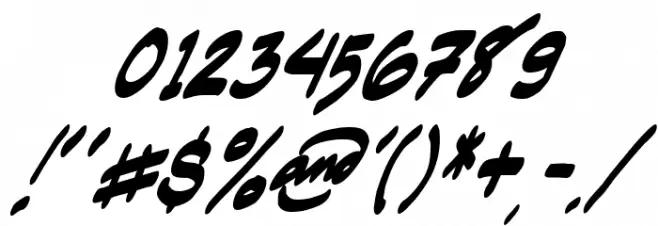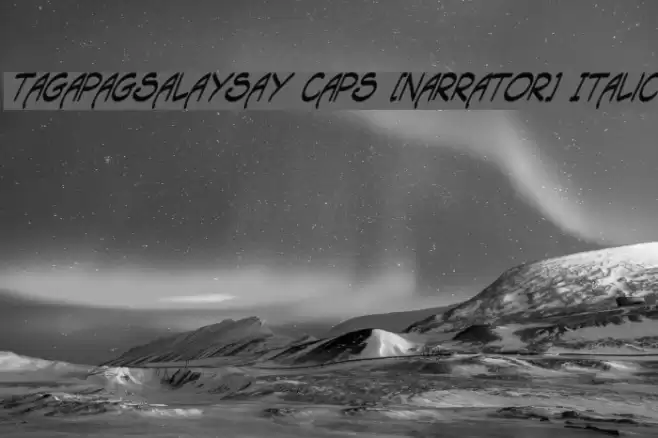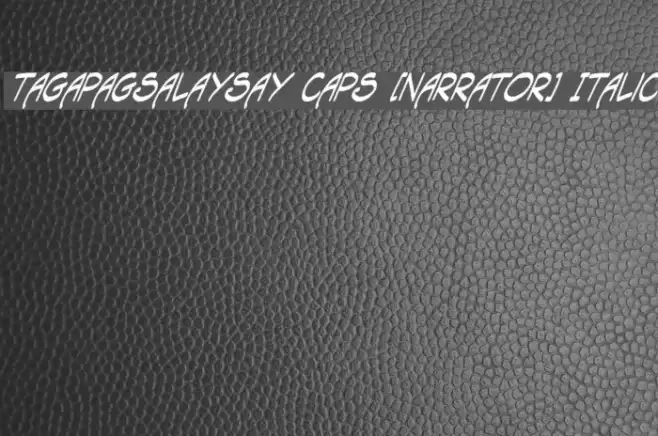
Tagapagsalaysay Caps [Narrator] Italic Font
Tagapagsalaysay Caps [Narrator] Italic Description
This font features a dynamic and fluid italic style, characterized by its slanted and cursive letterforms. The uppercase and lowercase letters exhibit a consistent flow, with strokes that are both bold and expressive. The numbers and special characters maintain the same energetic style, ensuring a cohesive look across all text elements. The font's design is reminiscent of handwritten script, offering a personal and artistic touch. Its bold weight and medium contrast in stroke thickness enhance readability while maintaining an elegant appearance. The character spacing is slightly tight, which adds to its compact and efficient use of space.
A bold, italic script font with dynamic, cursive letterforms from Uncategorized fonts.
- Proposed Projects: Ideal for creative projects such as invitations, greeting cards, branding, and artistic posters.
- Character Spacing: Tight
- Use Case: Logos, Headlines, Artistic projects